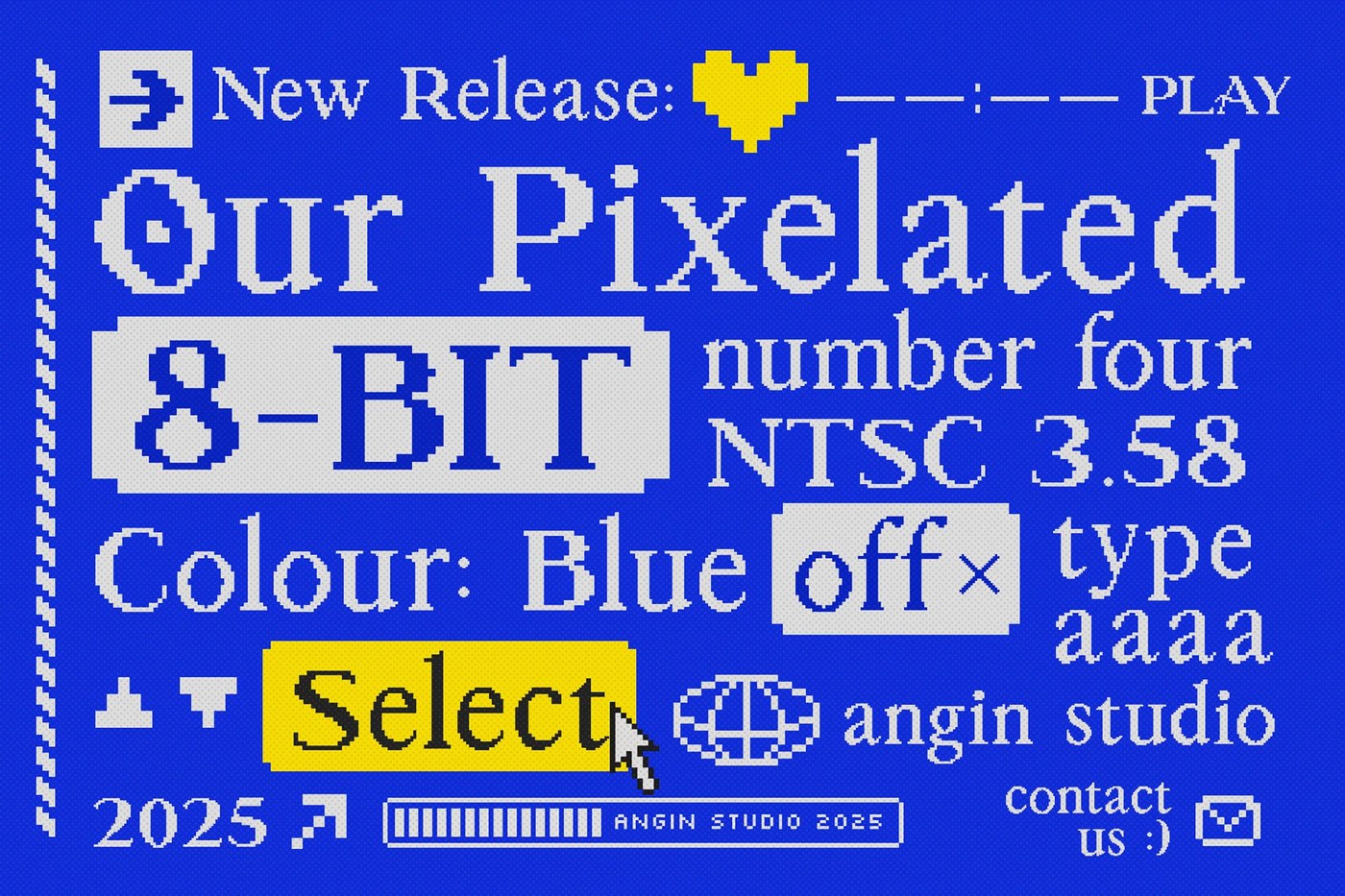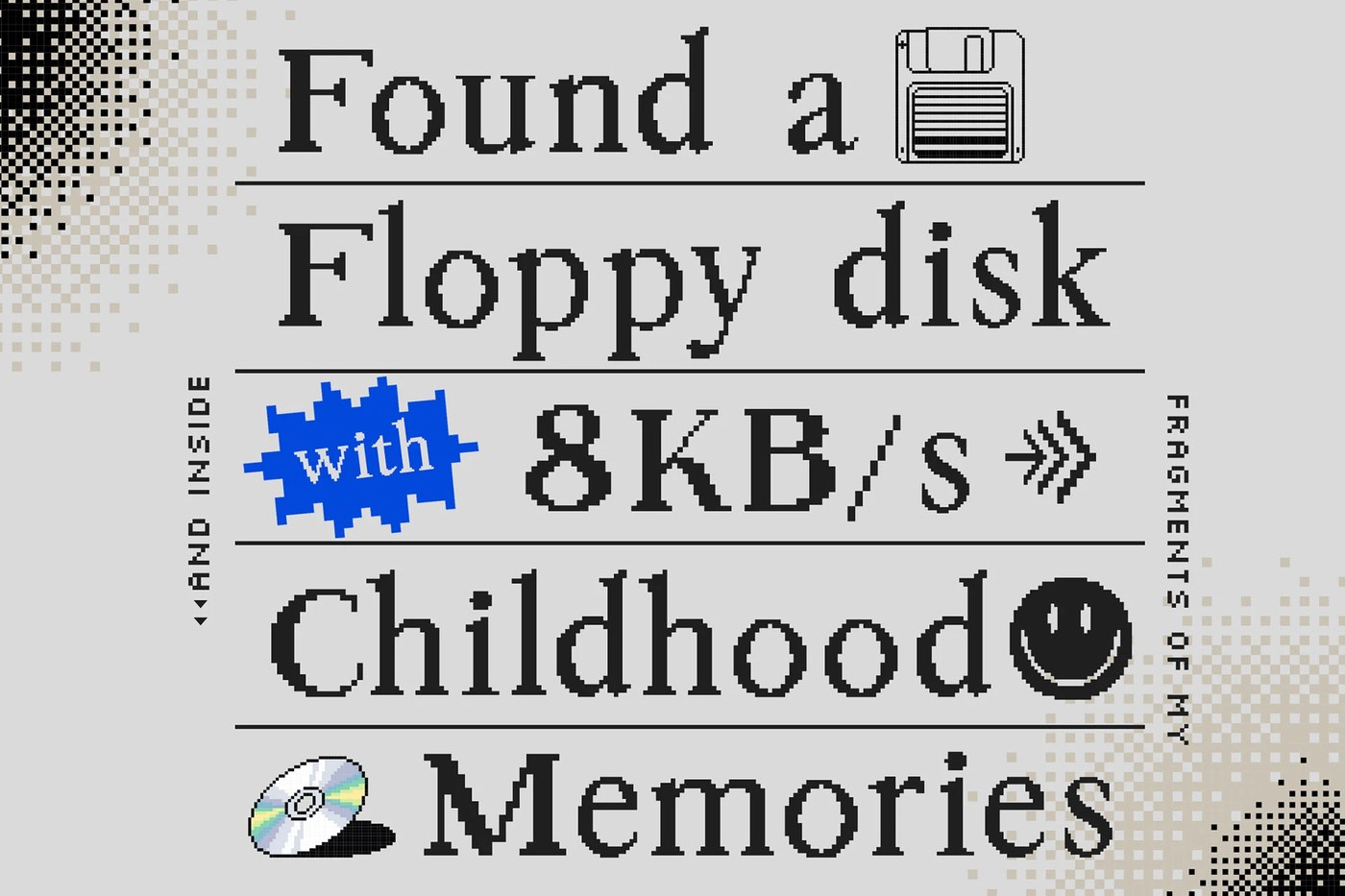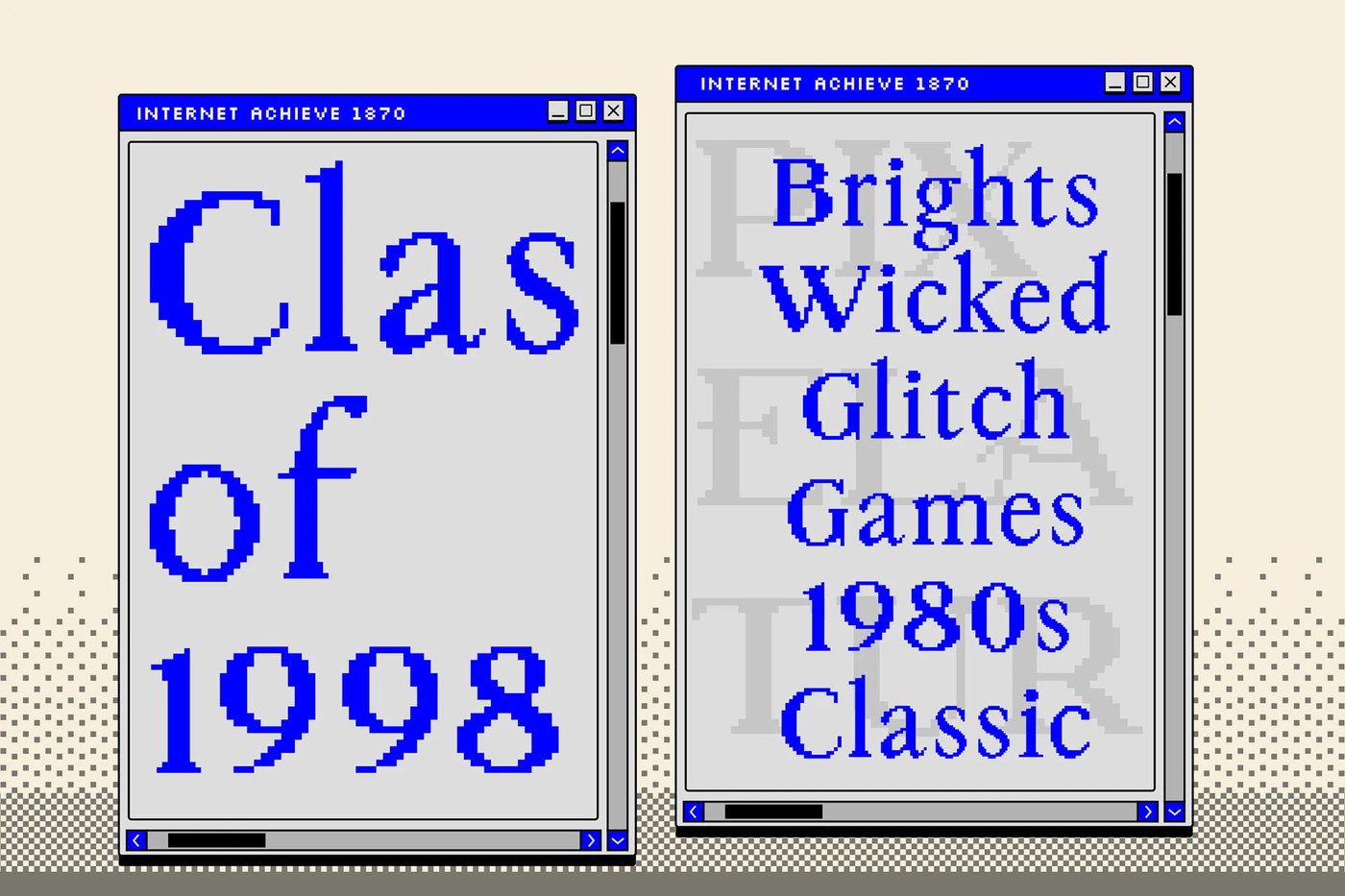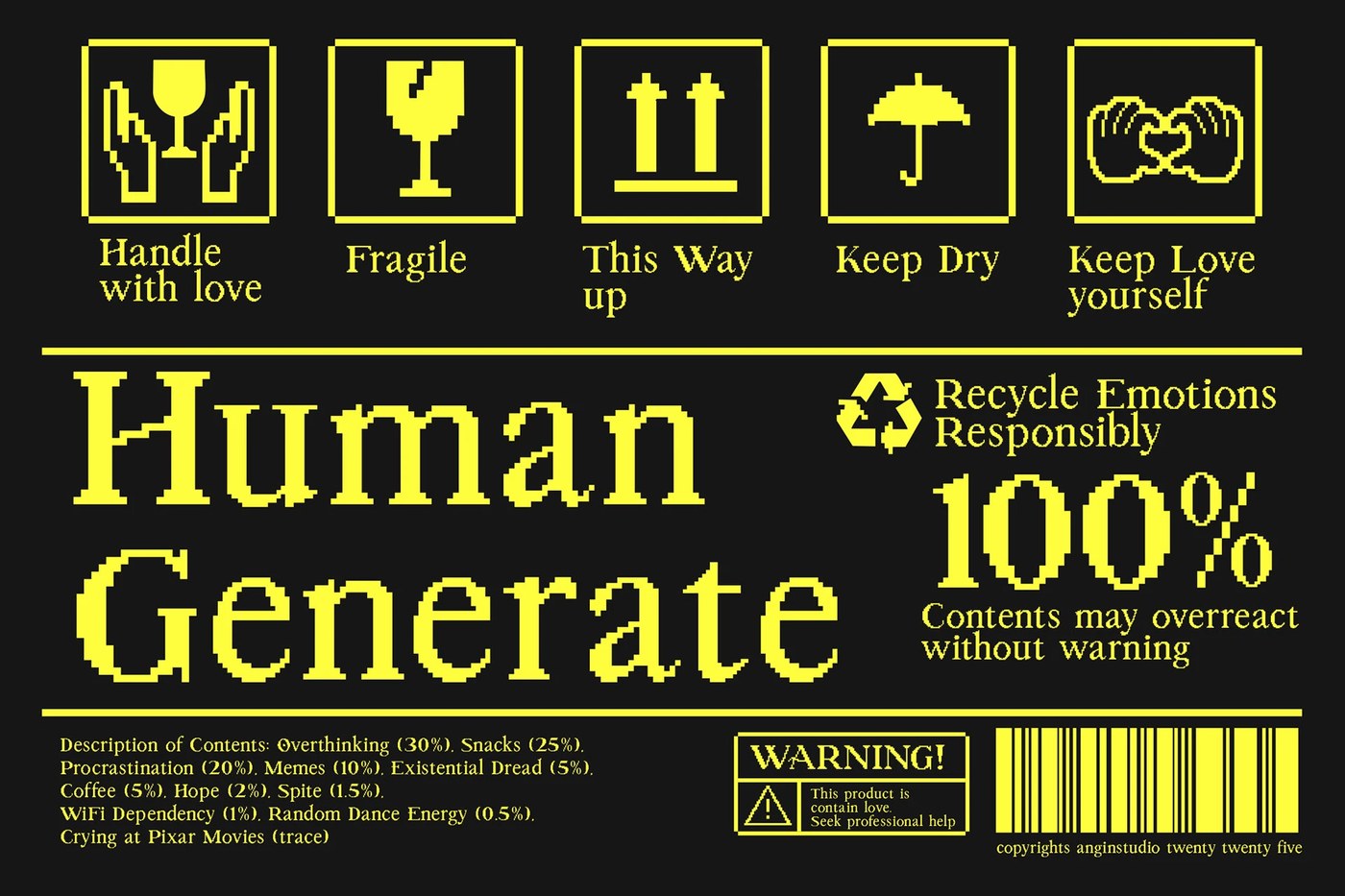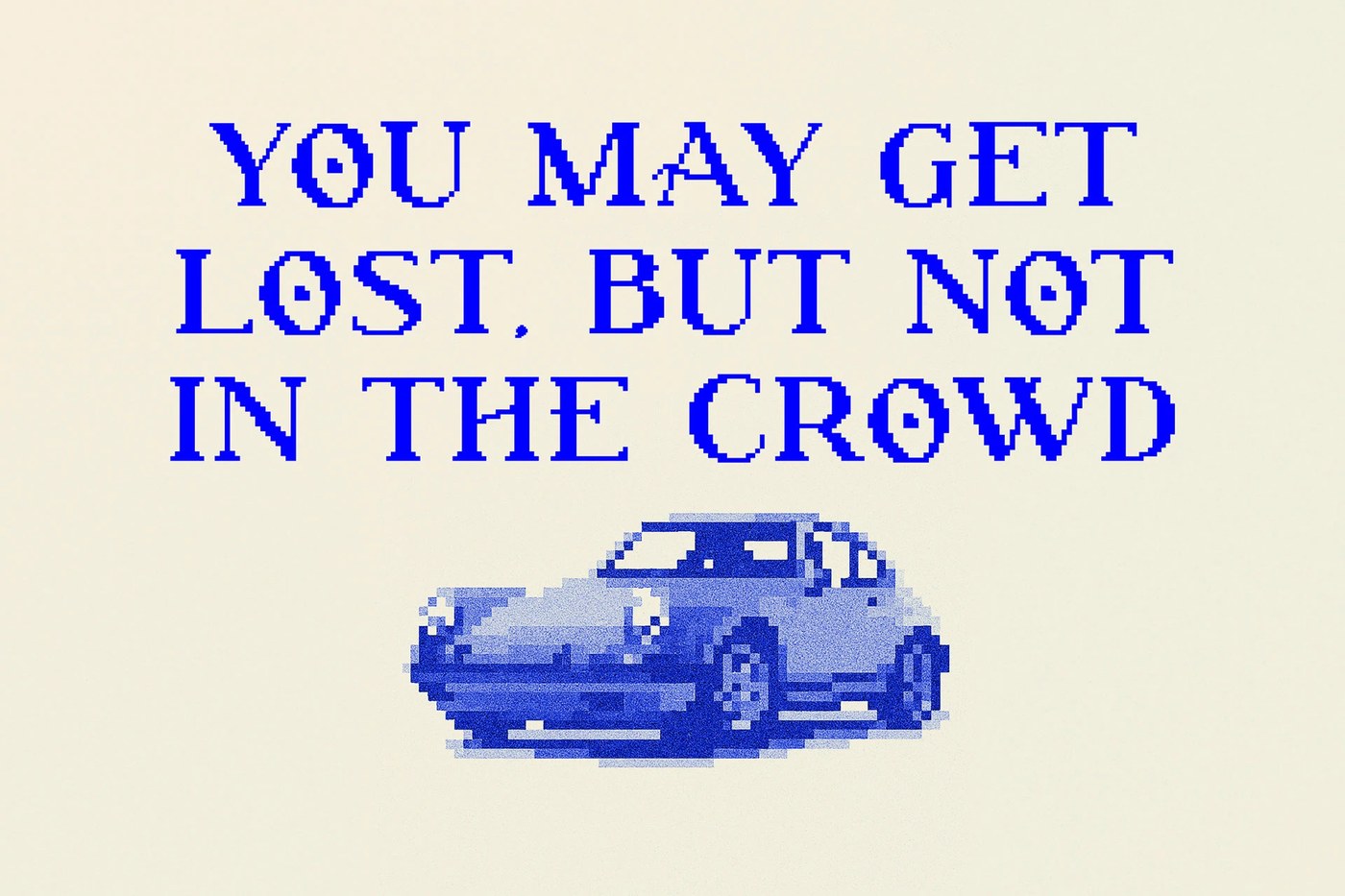
Pixelatura: Pixel Font Display Typeface With Classic Serif Bones
Pixelatura is a pixel font display typeface from Jakarta. Retro digital 1990s MS Paint memory grafted onto classic serif architecture. Both stay visible.
The alphabet specimen makes the construction legible: each glyph in cream on beige shows stair-stepped curves where a normal serif would have a smooth arc, and hairline serifs rendered as single-pixel brackets. MS Paint was the source — the childhood canvas before Photoshop — and David Novrian and Ahmad Aswin of Angin Studio kept that logic intact rather than smoothing it. As a pixel font display typeface, the grid is actual architecture, not texture applied after the fact.
A Pixel Font Display Typeface Built on Classic Serif Proportions
The specimen images do the argument's work. A Windows 95-style composition sets this pixel font display typeface at roughly 300pt against an electric blue background with pixel-art desktop icons — the reference is explicit but not decorative. The 1996 numerals at near-full-bleed scale show the stair-step pixel grid at a size where it becomes a structural system, not a detail. On black with yellow letters, the Human Generate poster makes the case that this pixel font display typeface can carry contemporary brand work without the retro digital reference becoming a costume.